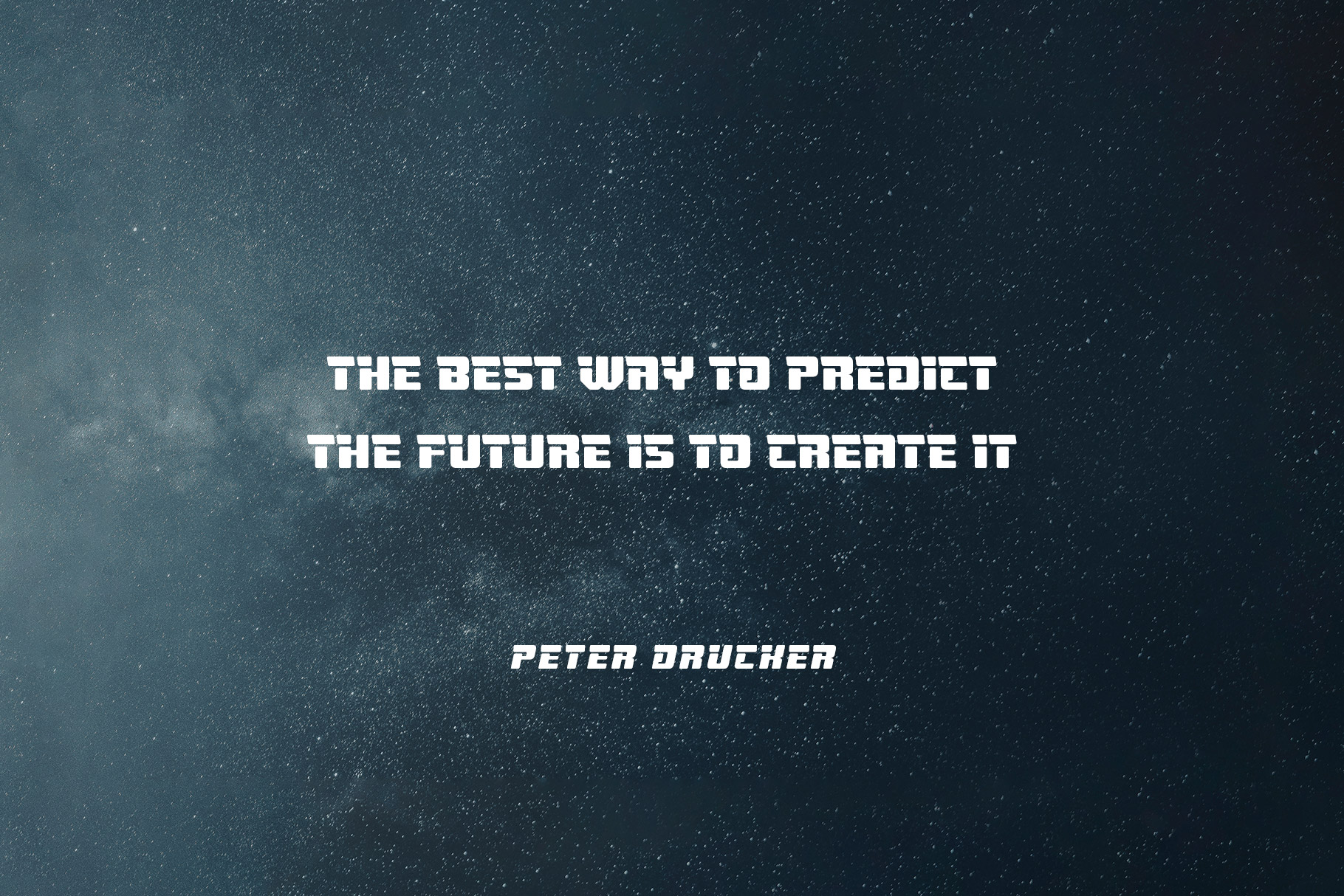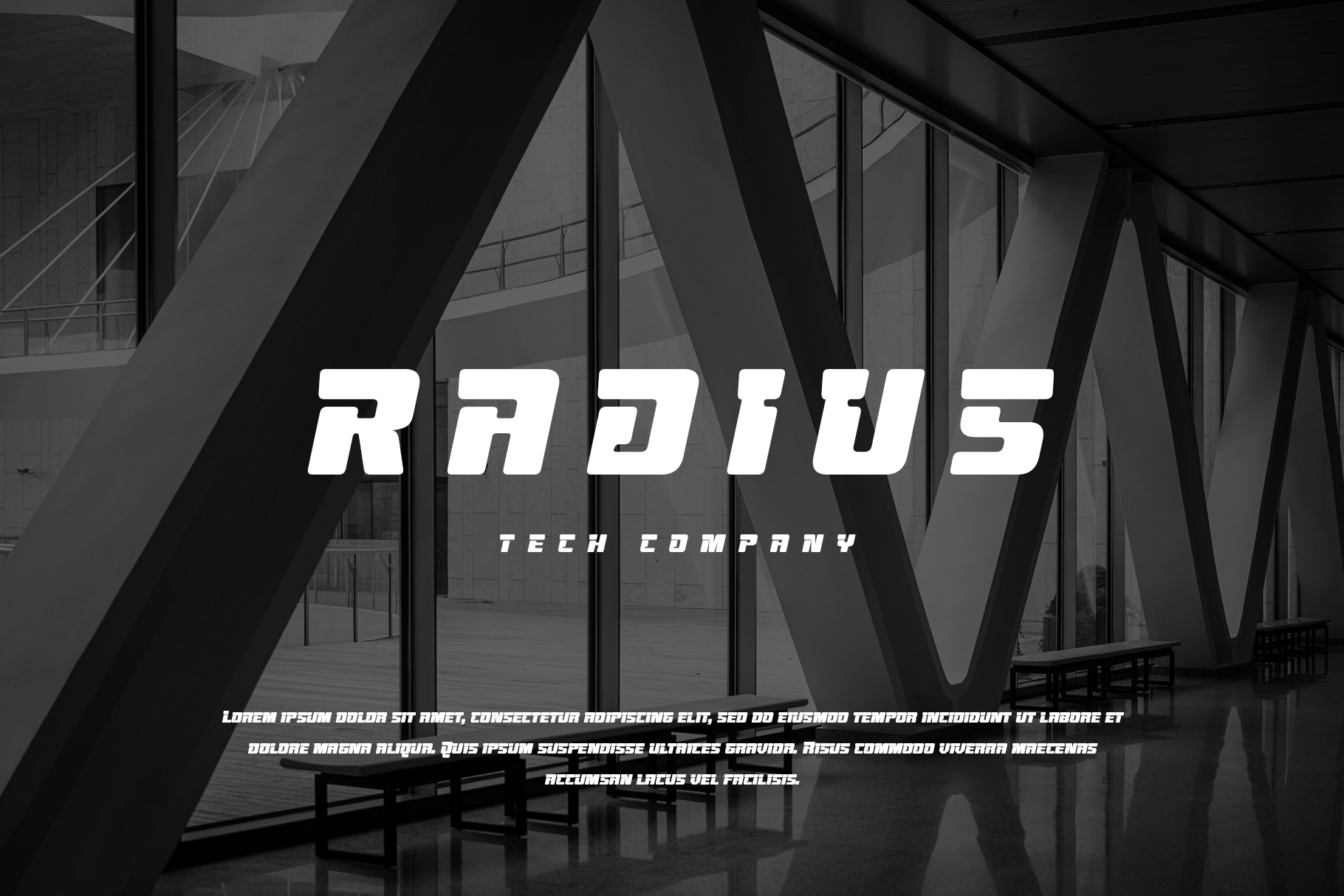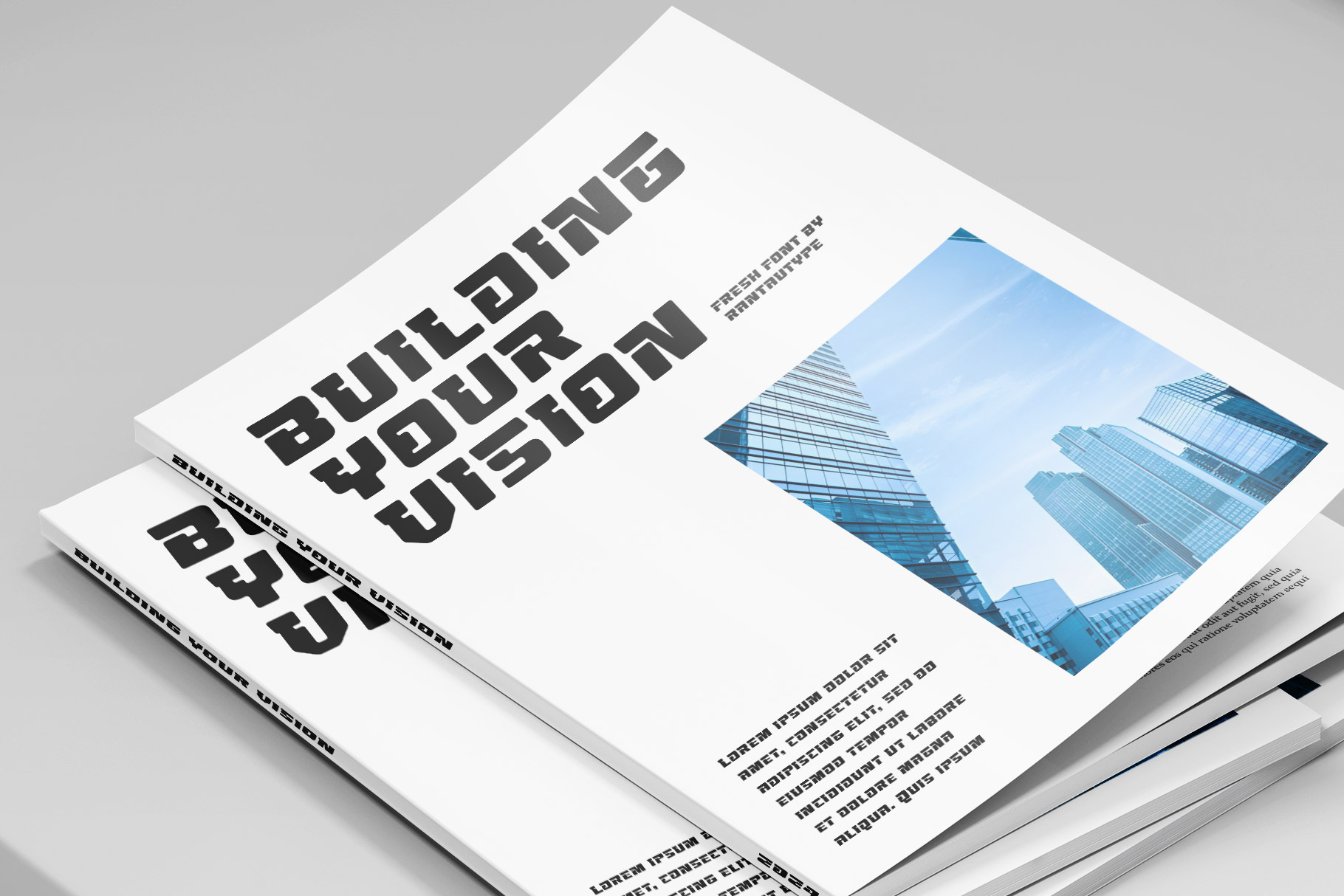
Advero Futuristic Font
Advero is modern futuristic in visual form for your design. Inspired by the science fiction movies and futuristic digital concept. Strong and eye catch look is the main style for this typeface also outline style give more modern and elegant look. Unique alternate give more value for this typeface to stand out. Advero come with ligature, alternate and mulilingual support.
Perfectly suitable for any creative endeavor, business project, corporate project, sports brand, logo, business card, games, posters, film/movie, packaging, events, advertising, digital futuristic concept and more. Now you can use advero to elevate you design.